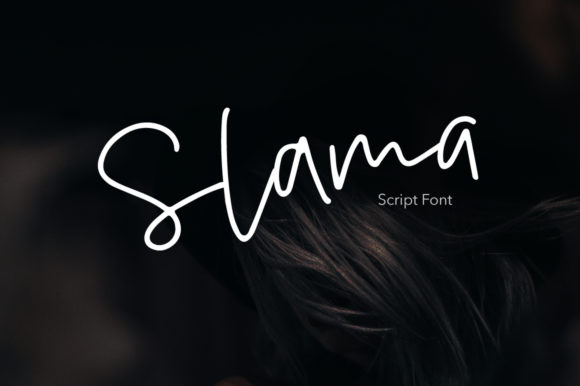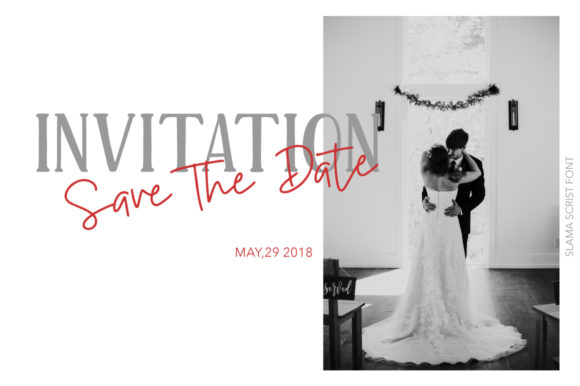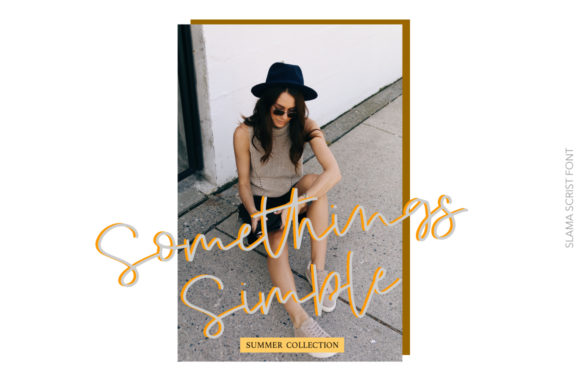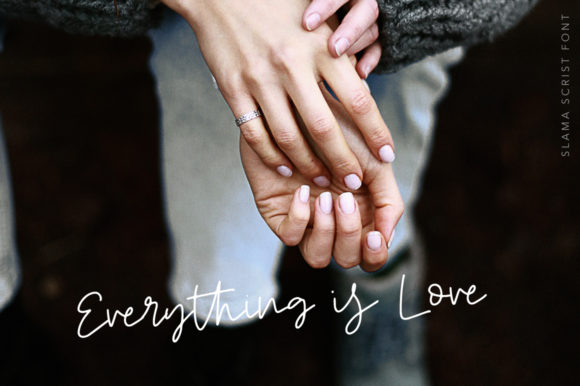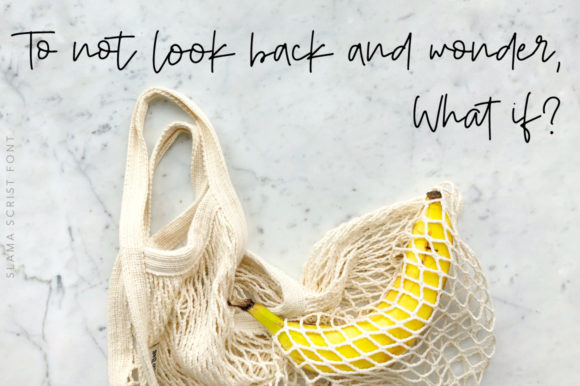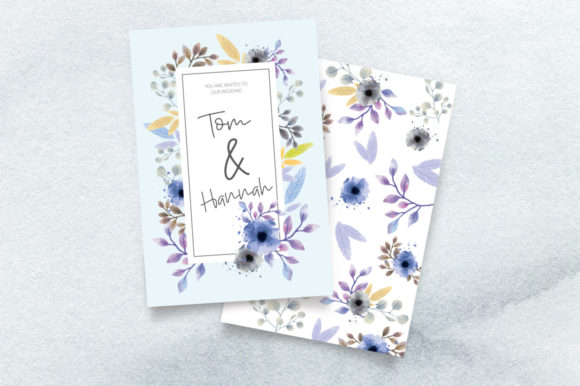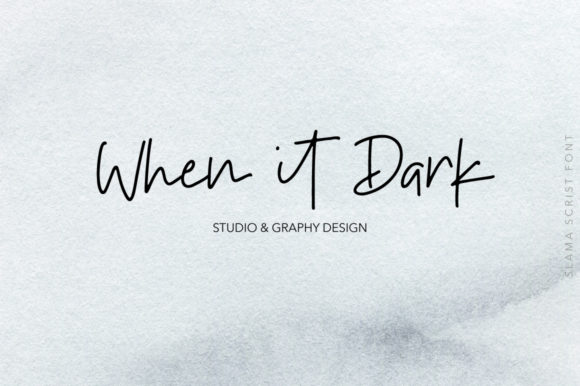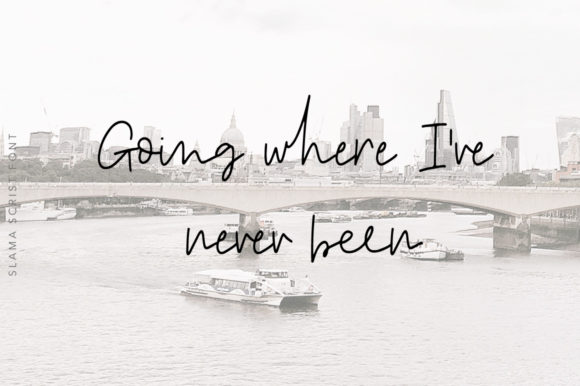
Slama Font
About Slama Font
The Slama is a striking branding font. Every single letter has been carefully created to give it an elegant touch. It has a romantic feel and was designed to make a set of invitations, quotes, blog posts, and more!